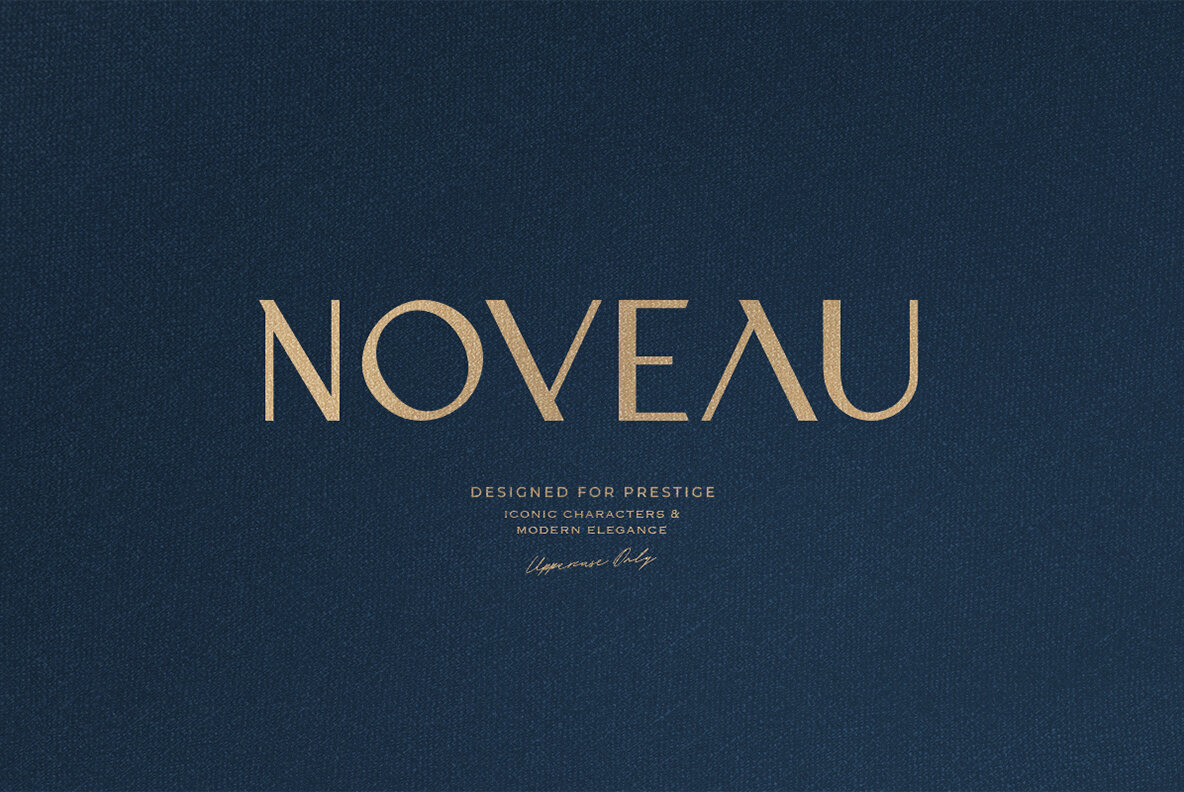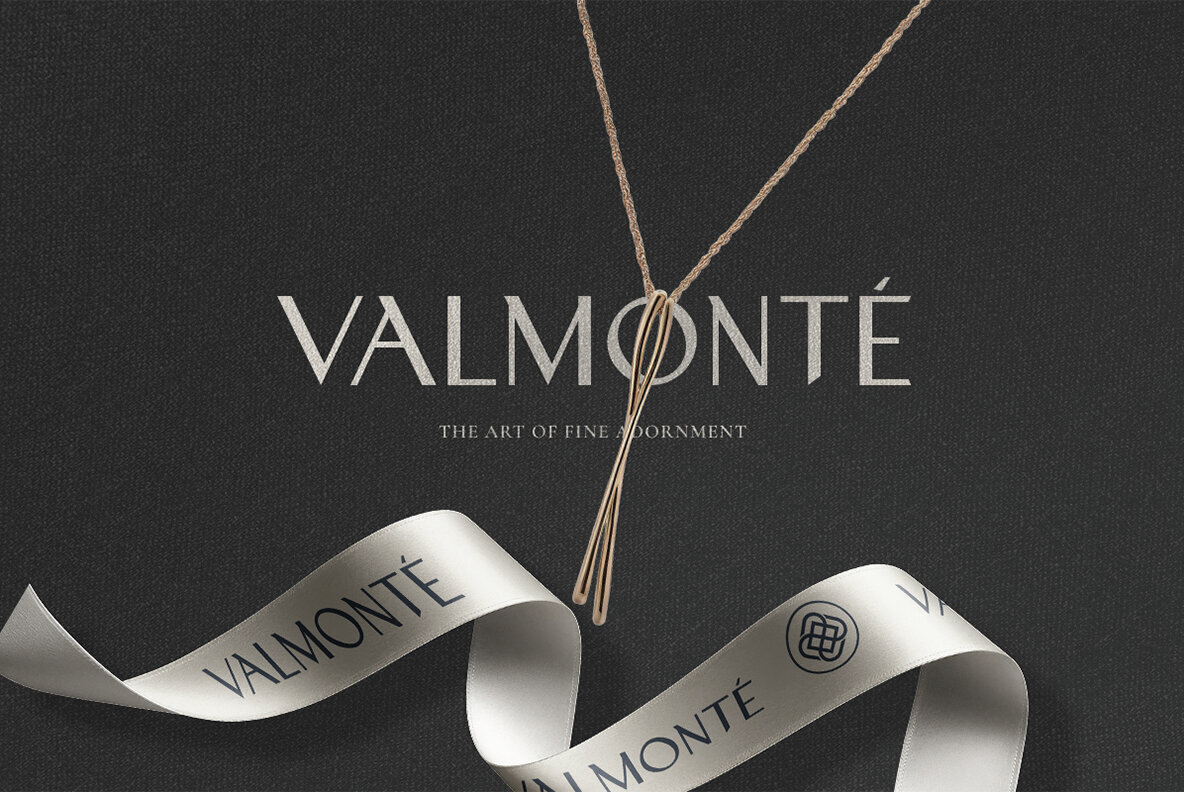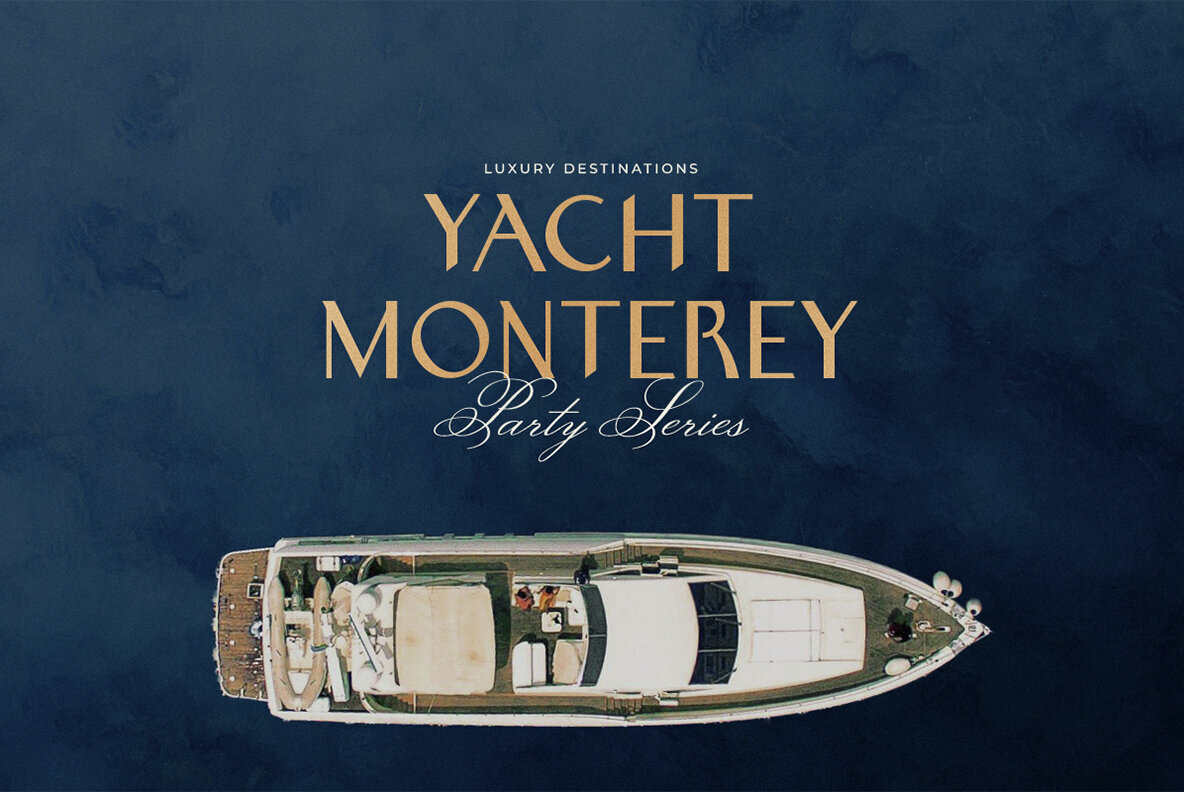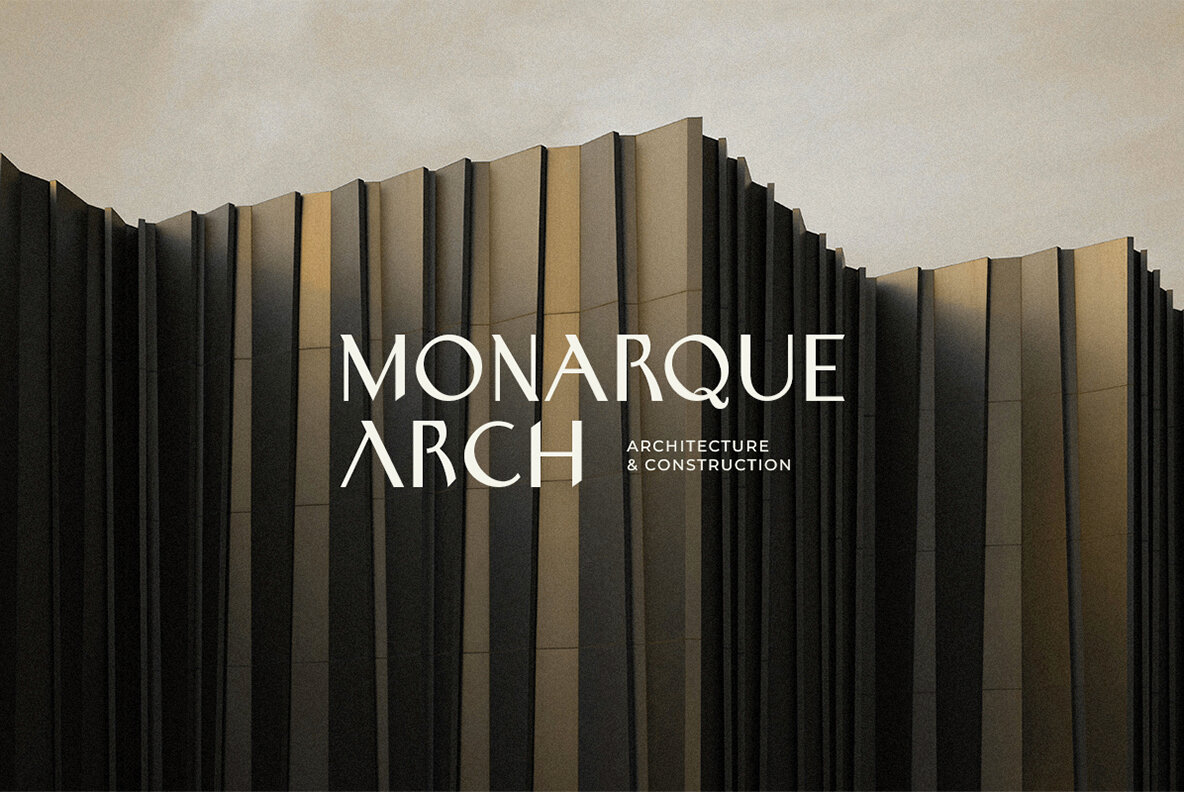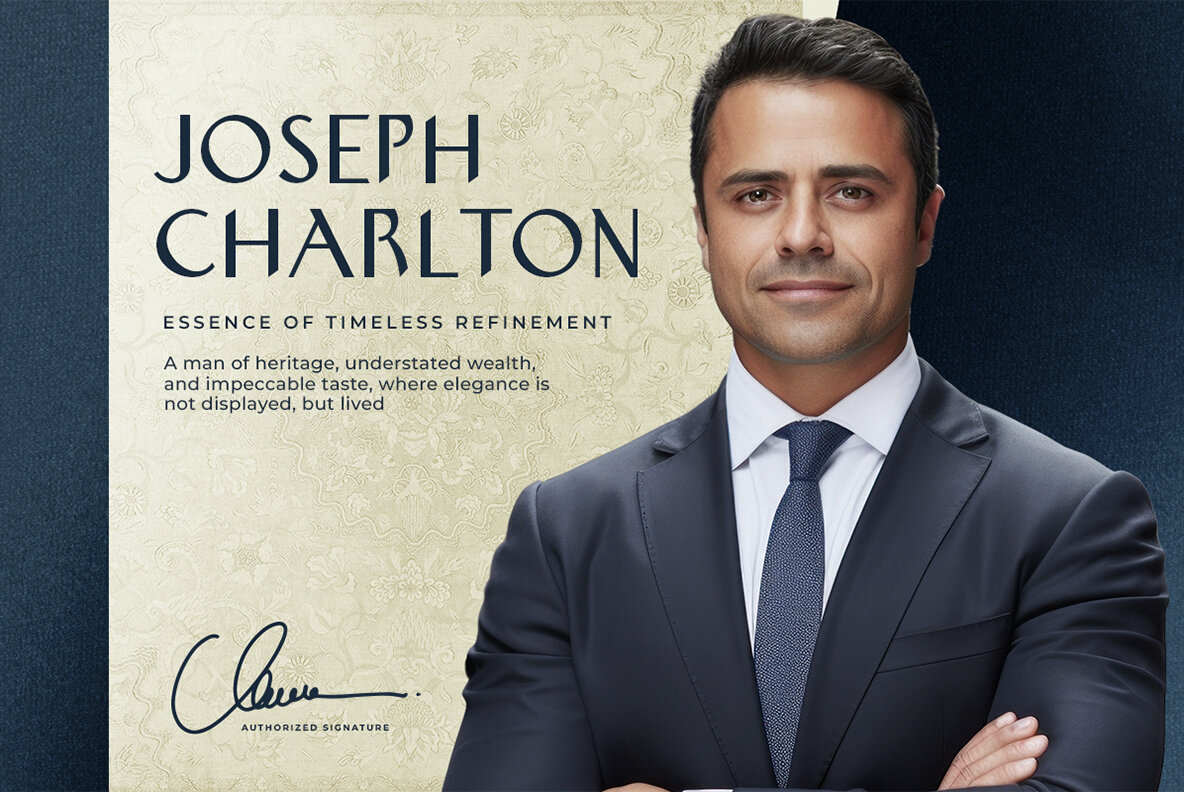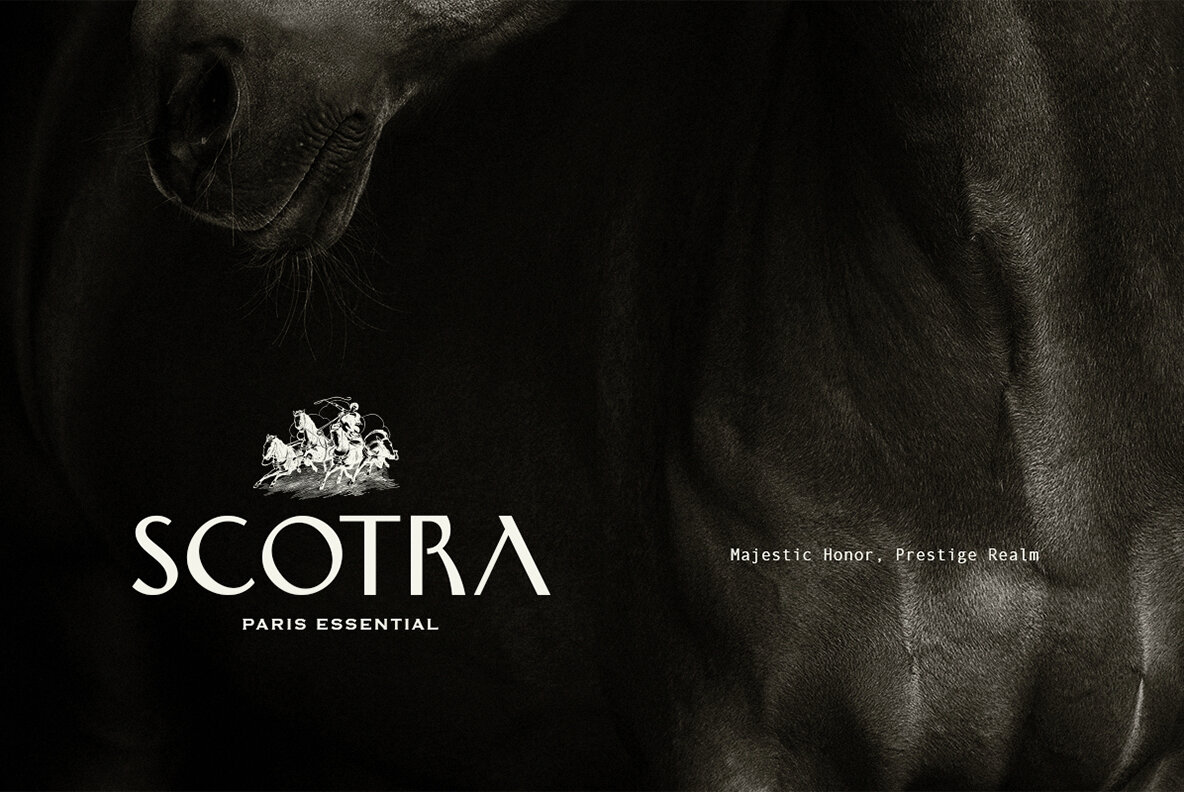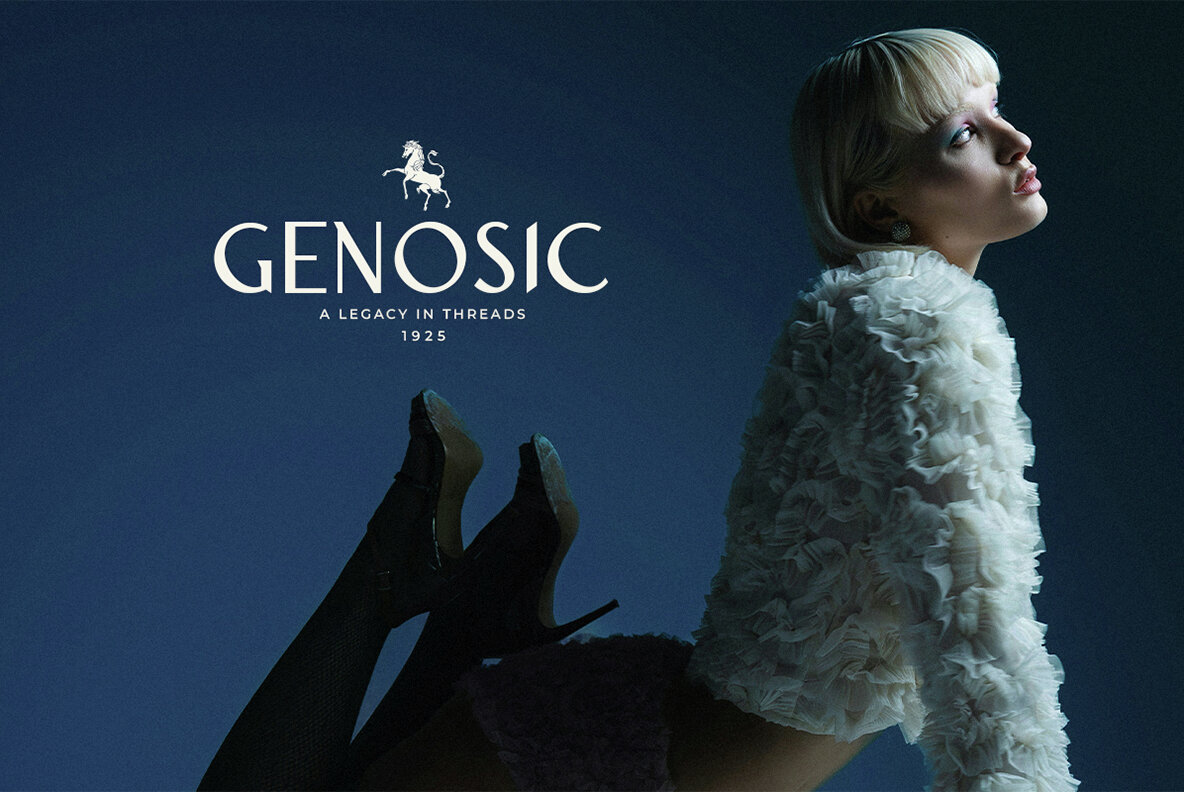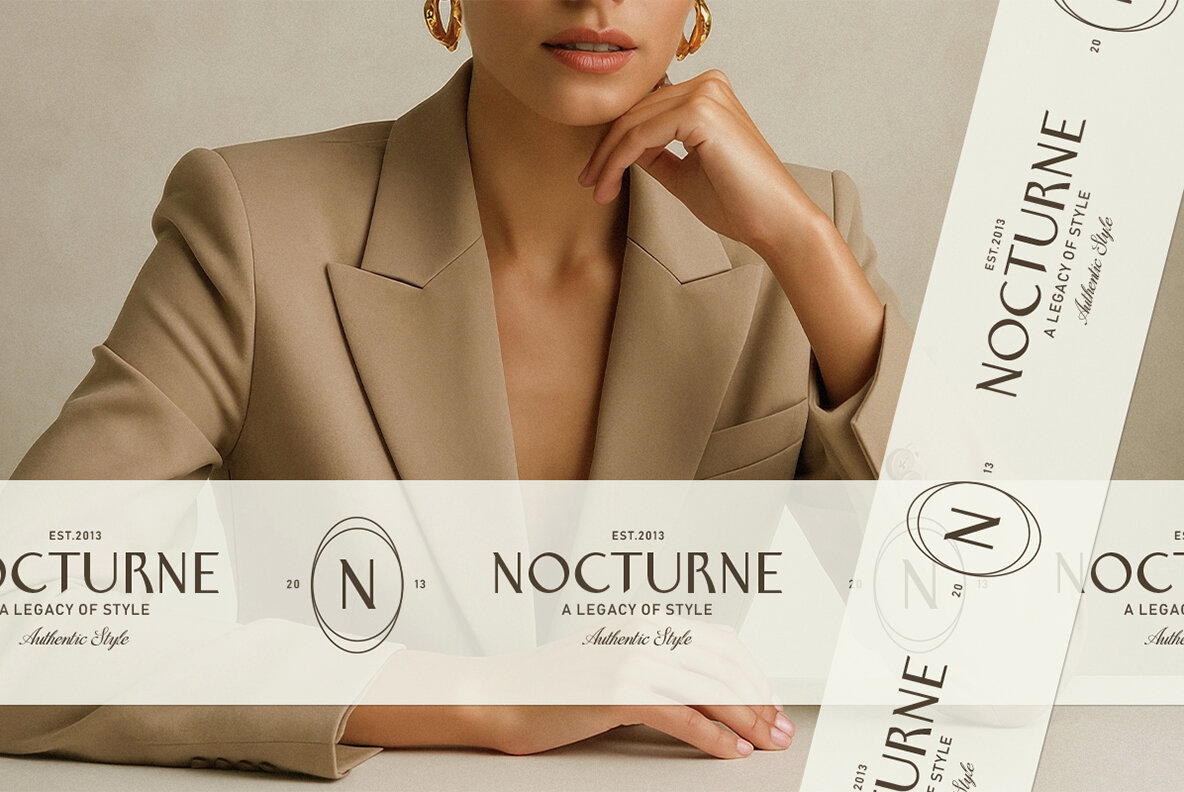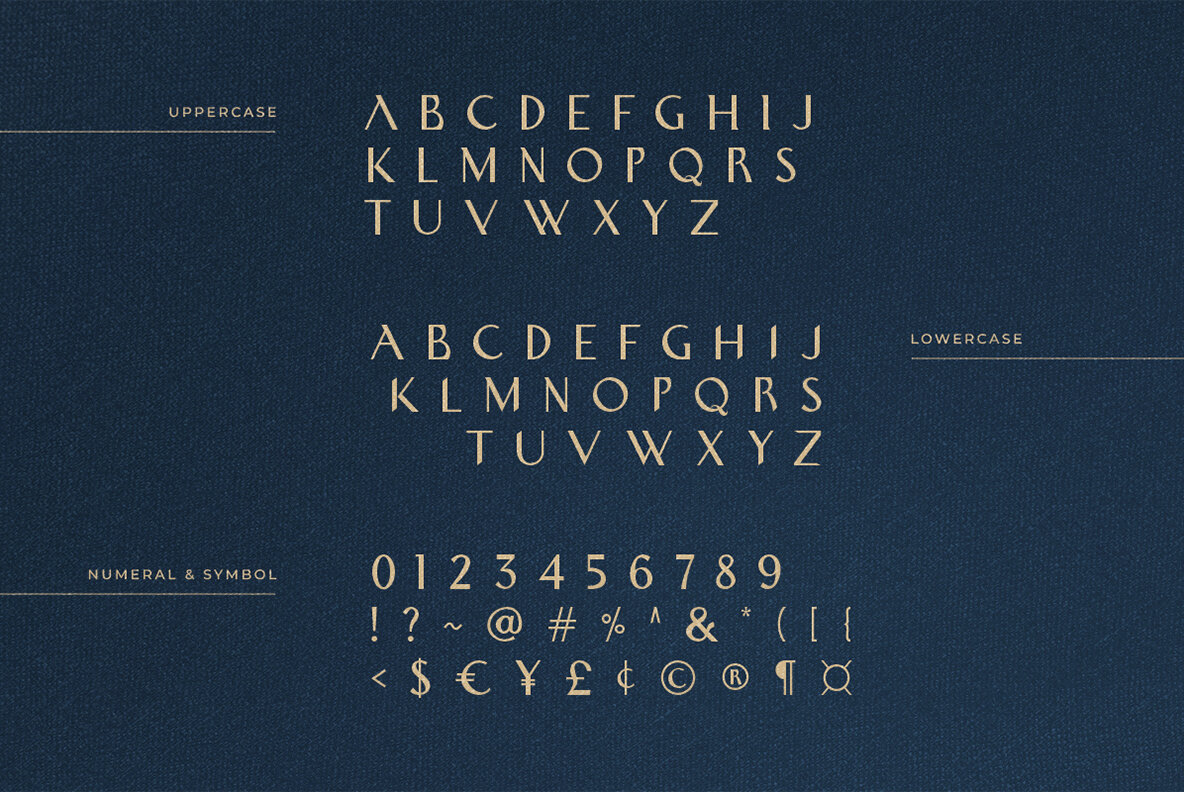
Noveau Font
Noveau radiates luxury and timeless elegance with its meticulously crafted uppercase letters. Designed for those seeking prestige in every project, this typeface becomes the quintessential choice for premium logos, fashion branding, and sophisticated editorial design. Each letter showcases iconic character and refined detail, ensuring your designs make an unforgettable impression. Choose Noveau to elevate your brand's aesthetic and convey a sense of exclusivity and distinction.Noveau Typeface